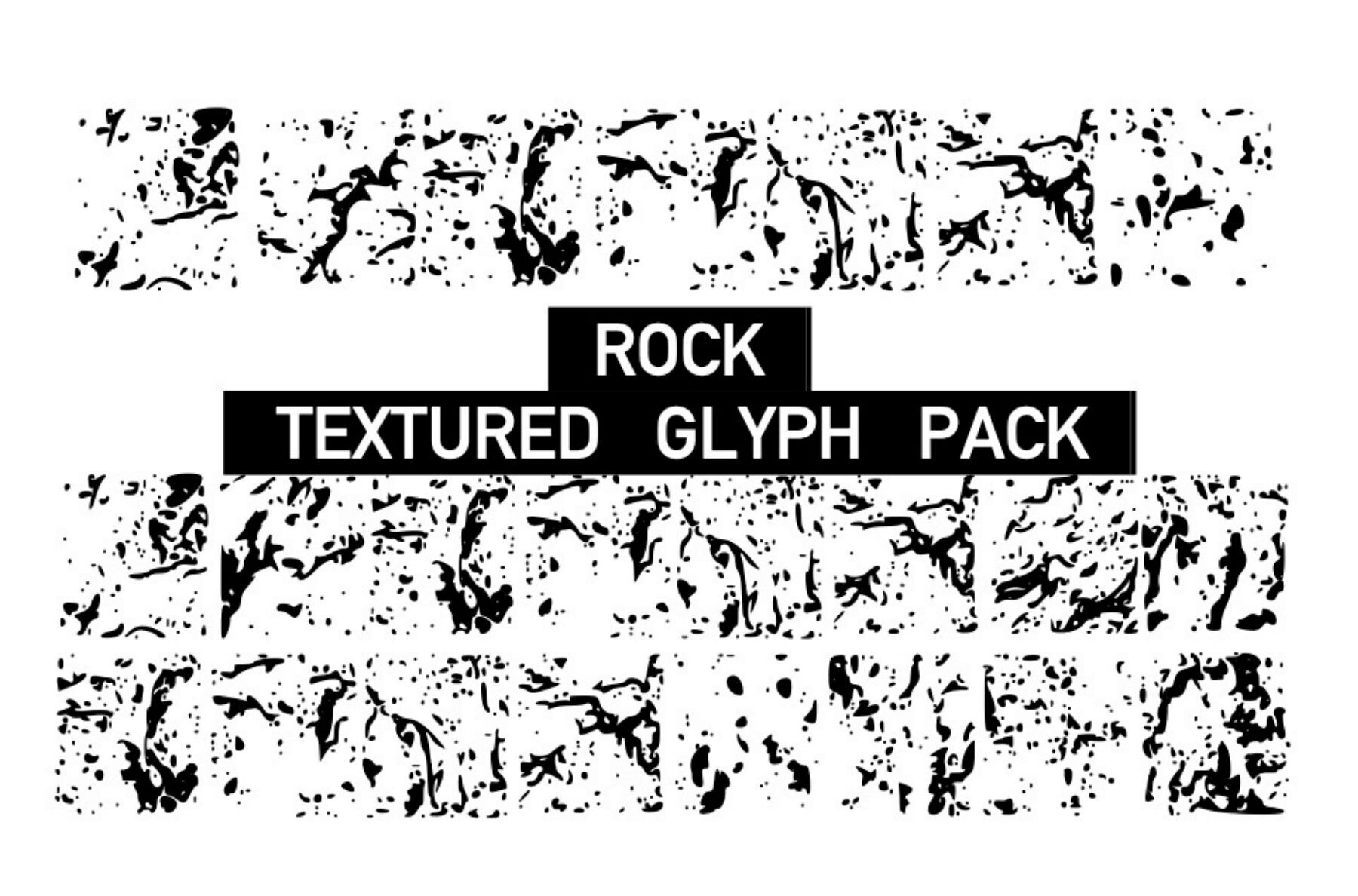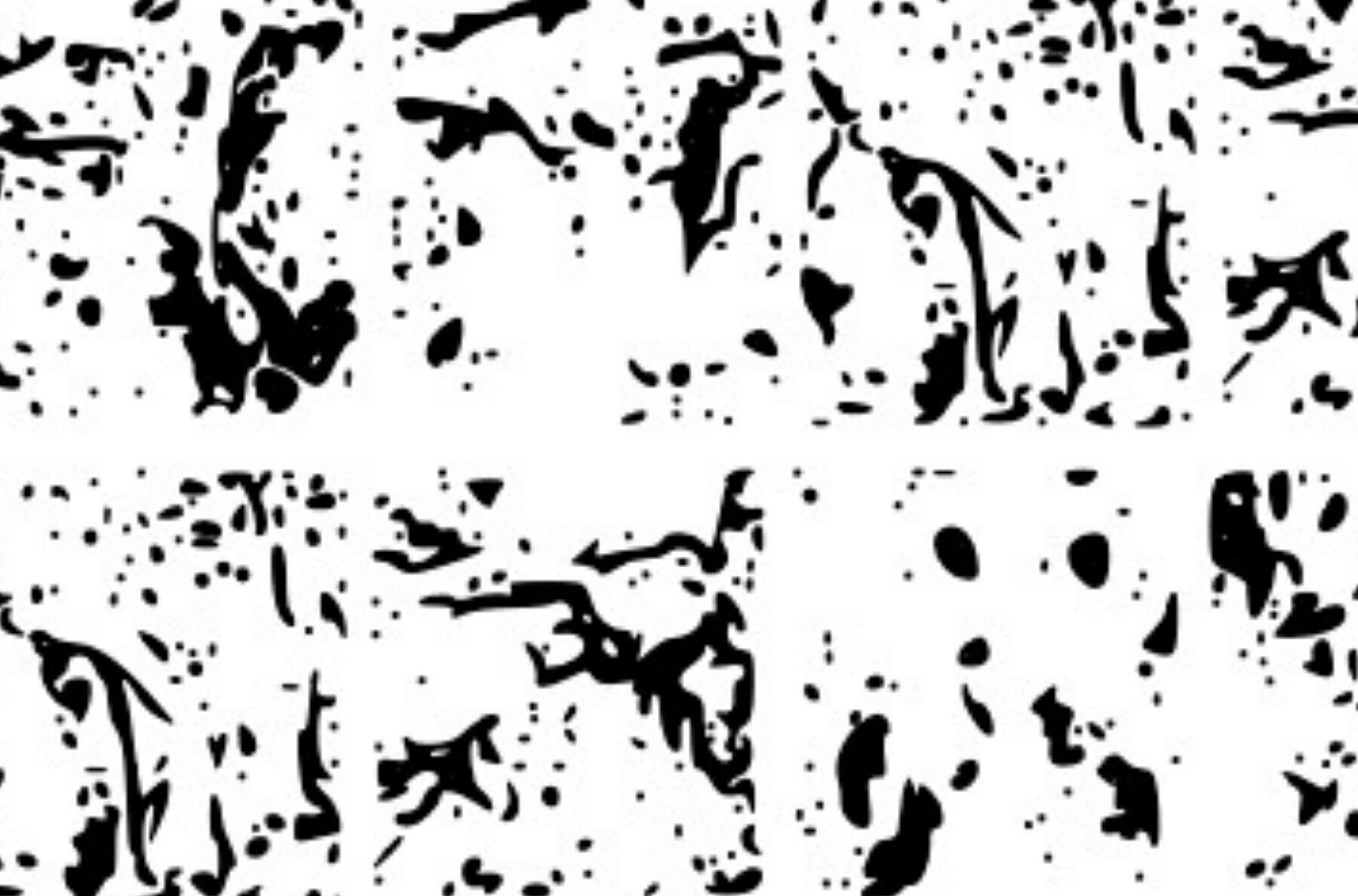
Texture Rock Font
Texture Rock
Elevate your design projects with our Texture Rock Glyphs, a comprehensive collection of textured rock icons that add a touch of nature to your work. Perfect for both digital and print projects, these glyphs bring a raw, organic feel, ideal for enhancing branding materials, website designs, and artisanal crafts.Texture Rock Glyphs Collection